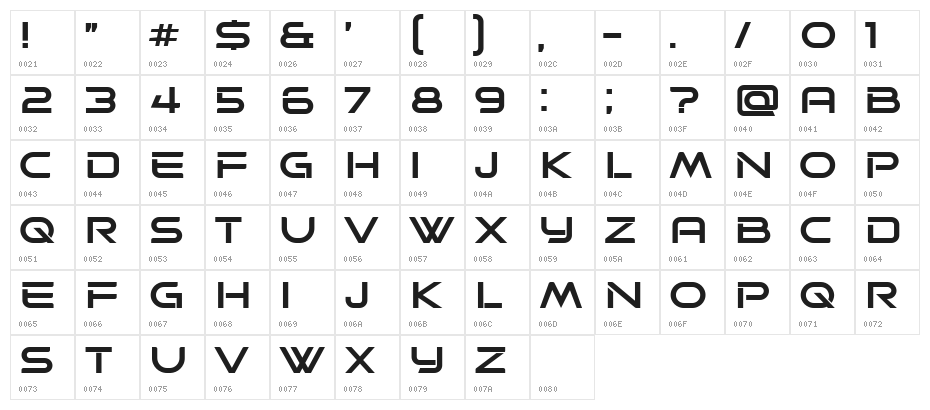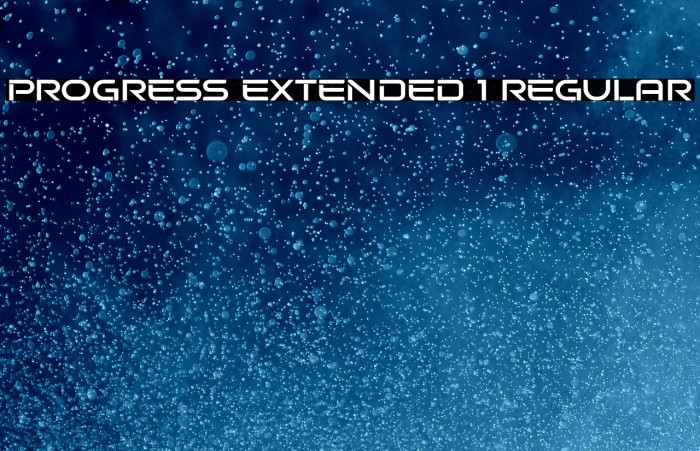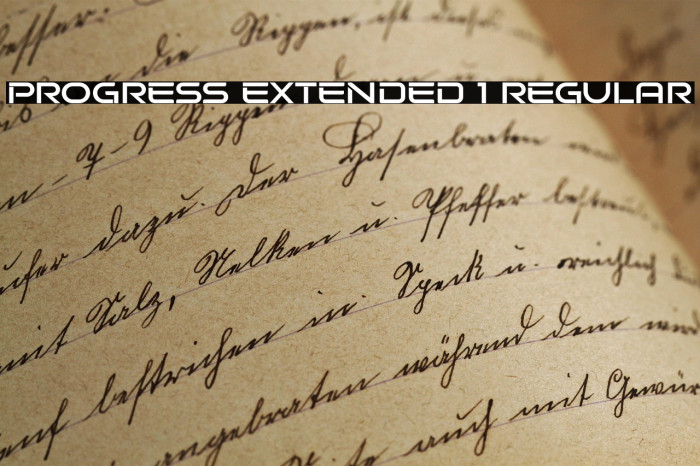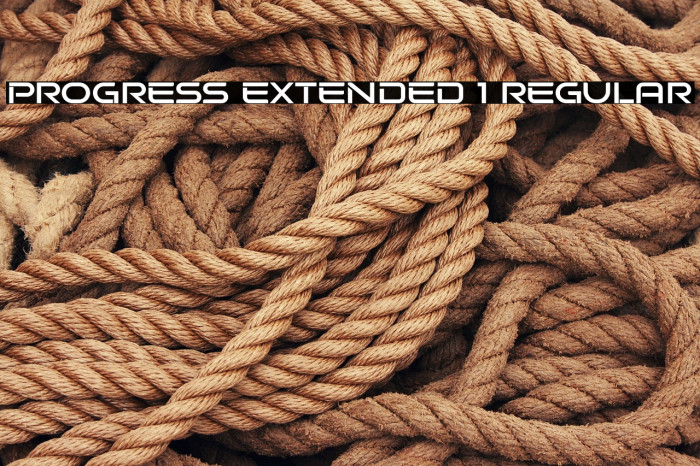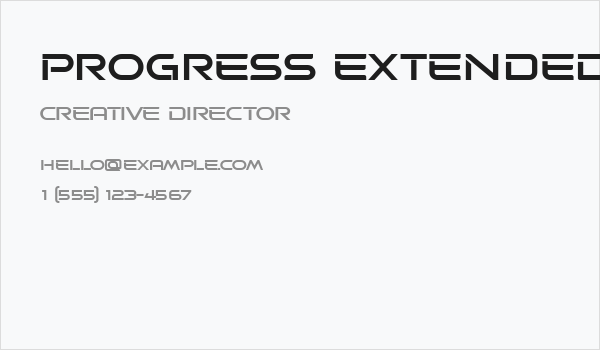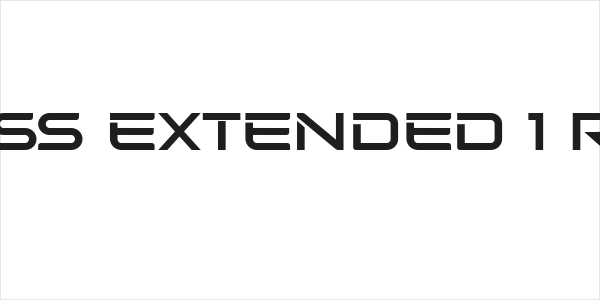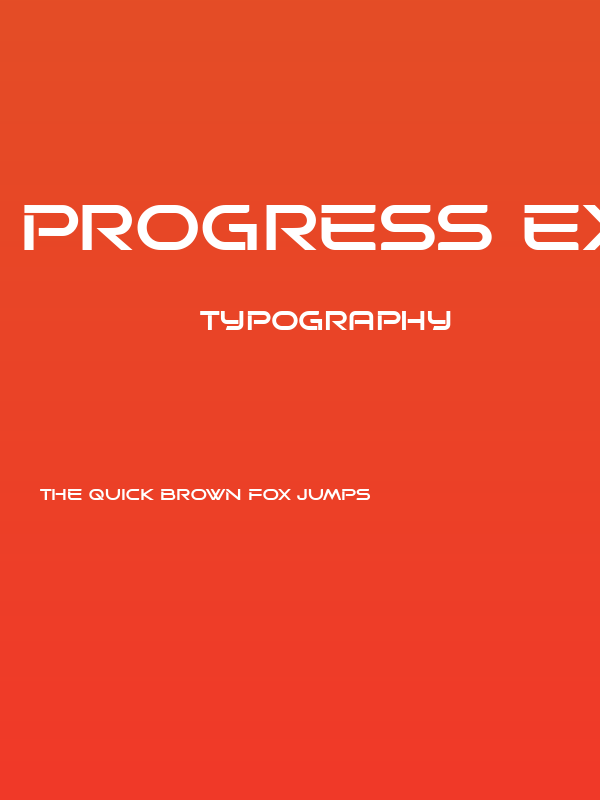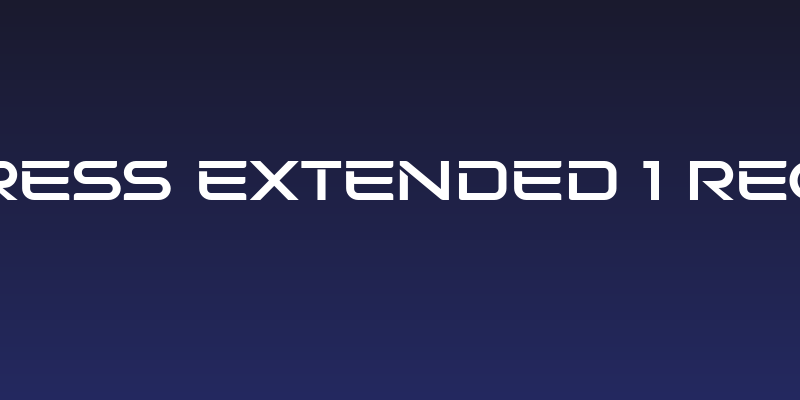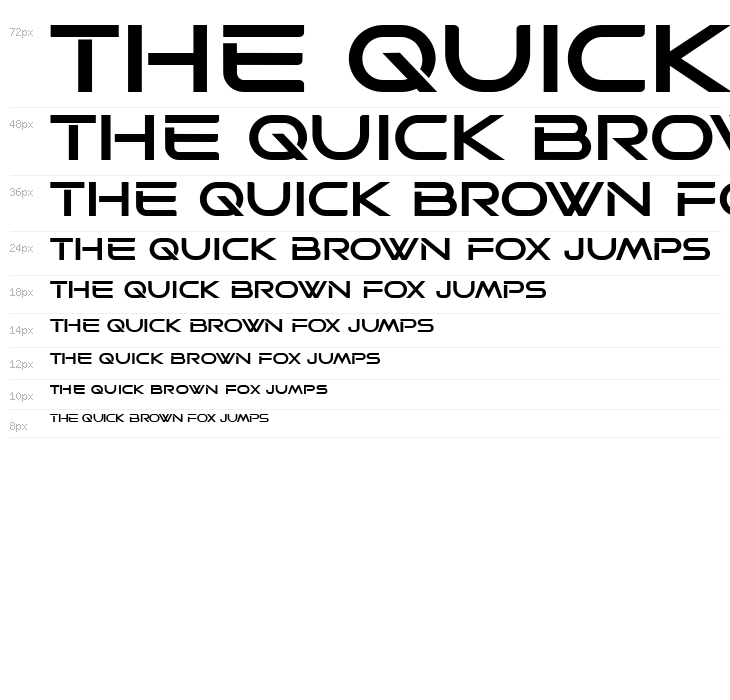
Progress Extended 1 Regular Font
Progress Extended 1 Regular Description
This font features a bold and futuristic design with geometric elements that give it a modern and sleek appearance. The characters are wide and have a consistent thickness, providing a uniform look across all letters and numbers. The uppercase letters are distinct with sharp angles and clean lines, while the lowercase letters maintain a similar style, ensuring readability and consistency. The numerals are equally bold and align well with the overall aesthetic. Special characters are designed to match the boldness and geometric style of the font, making it suitable for various applications where a modern and impactful look is desired.
| Proposed Projects | Ideal for technology branding, futuristic posters, video game titles, and sci-fi themed projects. |